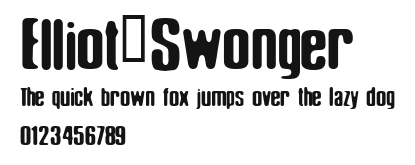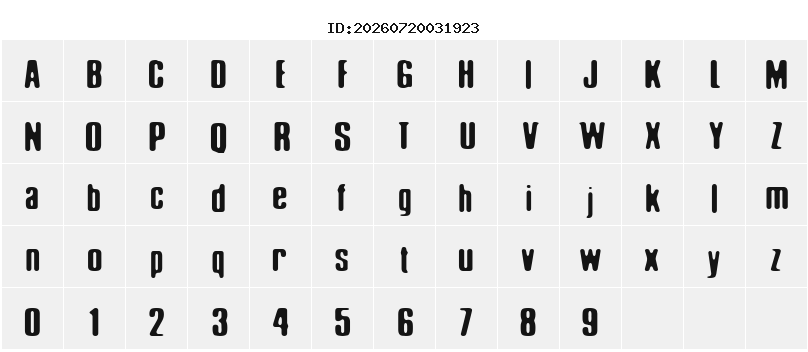
Elliot_Swonger Preview
• Font Name: Elliot_Swonger
• Full Font Name: Elliot_Swonger 2
About Elliot_Swonger.ttf
Elliot_Swonger.ttf is a modern, elegant sans-serif font designed for ultimate readability and visual harmony. Perfect for branding, headlines, web design, and print materials.